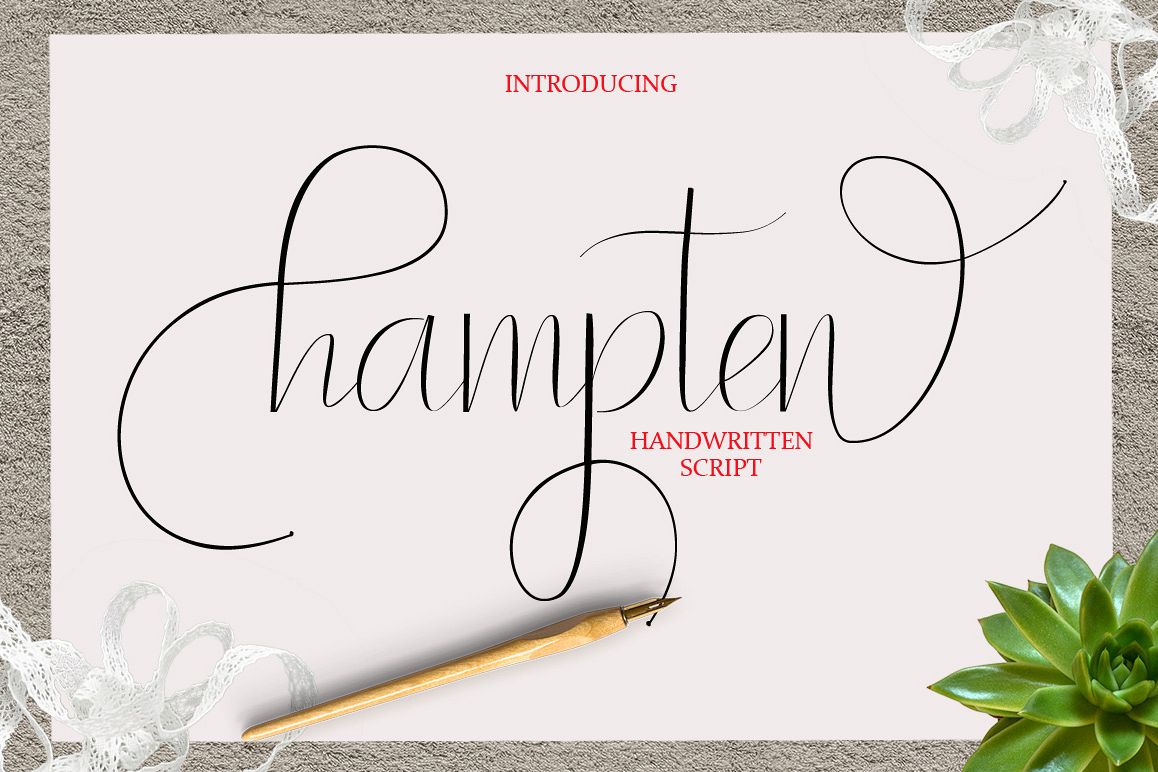
hampten
Introduce Hampten Script, Hand Lettered Calligraphy Font with beautiful waves and natural flow. has a unique letter style, with natural handdrawn, and has a softer and smoother character subtly connect all the characters.They have a simple elegant swashes in separate letters, you can use graphic design software to access the alternate letter.Hampten Script is perfect for weddings, invitations, greeting cards, quotations, posters, branding, business cards, stationary, title design, header blog, excerpts of art, the art of typography, letter envelopes modern or design books, occurred styles such as design handdrawn, title , letter marriage, pop vintage design, or purpose to make the project / art design we look beautiful and trendy.Files included:Hampten.(Otf, ttf) To enable the OpenType Stylistic alternates, you need a program that supports OpenType features such as Adobe Illustrator CS, Adobe Indesign & CorelDraw X6-X7, Microsoft Word 2010 or later versions.There are additional ways to access alternates/swashes, using Character Map (Windows), Nexus Font (Windows), Font Book (Mac) or a software program such as PopChar (for Windows and Mac).How to access all alternative characters:http://youtu.be/iptSFA7feQ0nn http://cuttingforbusiness.com/2016/01/28/how-to-use-opentype-fonts-in-silhouette-studio-or-cricut- design-space/ https://www.youtube.com/watch?v=Go9vacoYmBw Thank you for your purchase!